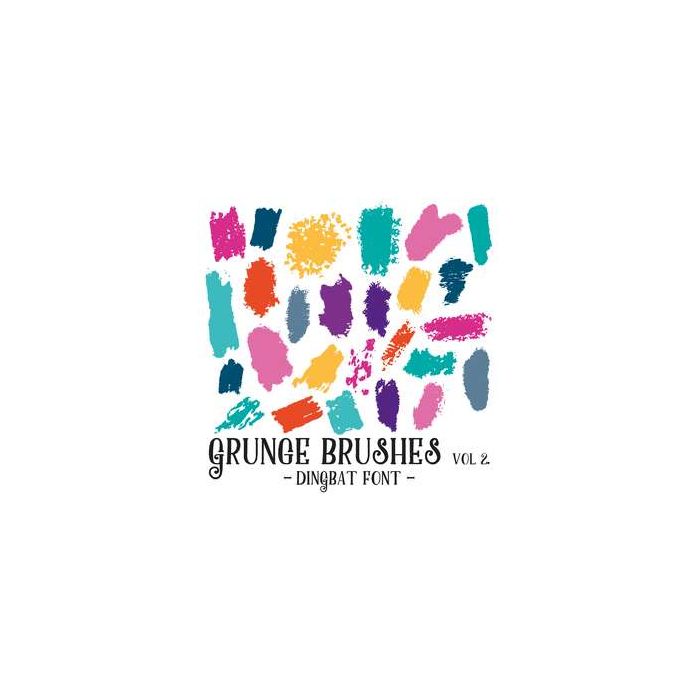
Grunge Brushes Vol 2 Dingbat Font (Volume 1 is available here in the Silhouette store!) With 26 Grunge Brushes great for textures and more, all allocated to upper and lowercase letters, simply type to use!